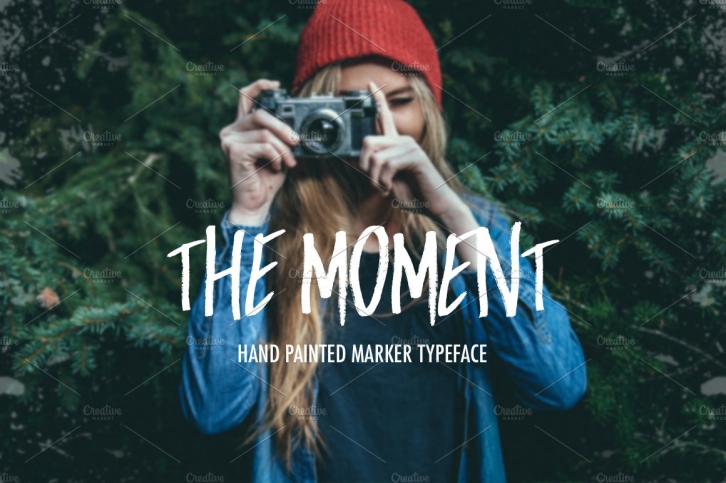
I present to you a great handwritten font. 100% drawn by hand. The font perfectly captures the structure of a dried up marker. Perfectly suitable for the decoration of your works.